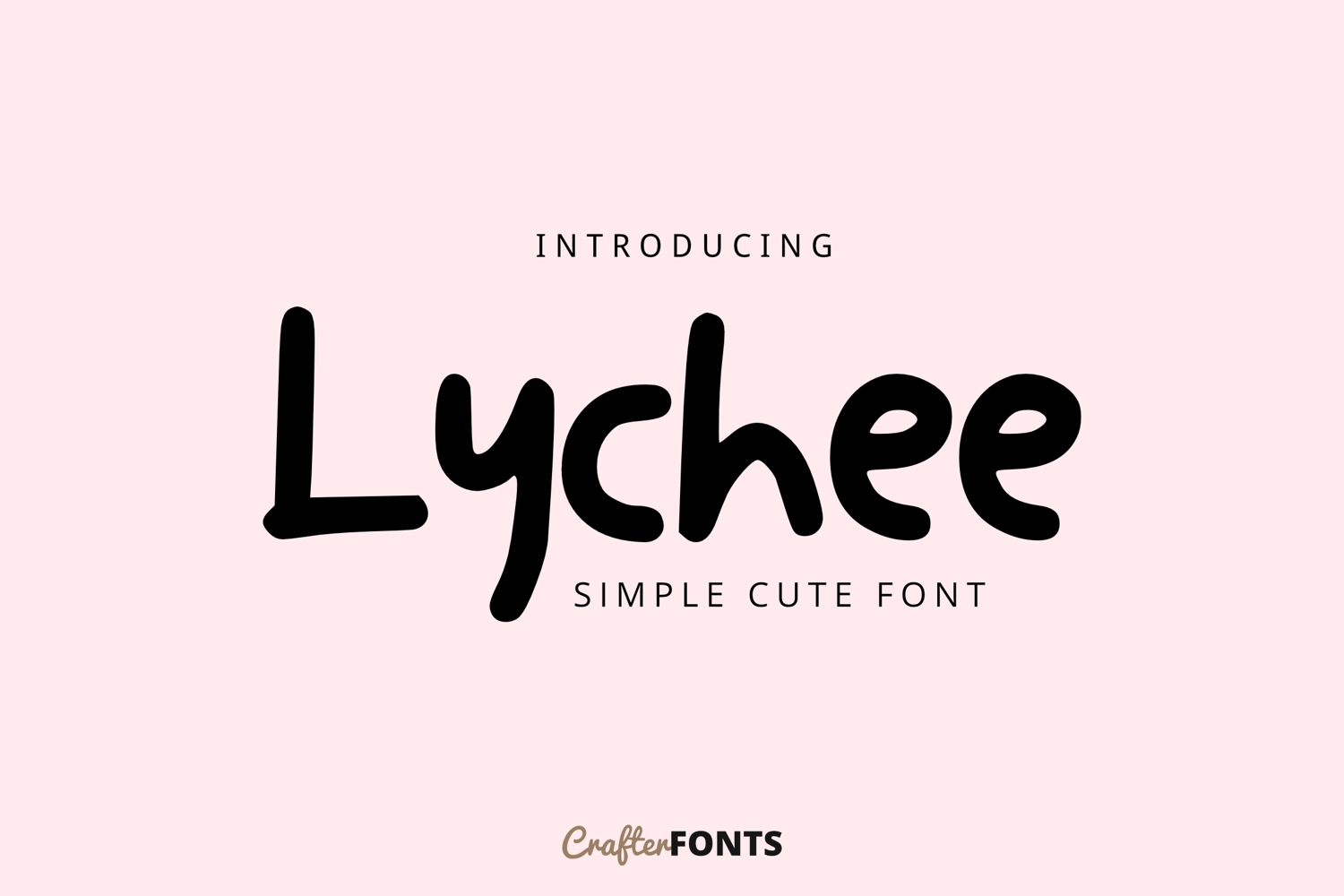
Lychee Font
Lychee Regular
Lychee – Simple Cute Font
Sweeten your creative projects with Lychee, a simple and cute display font featuring a delightful, bouncy, and organic handwritten style. With its clean yet uniquely rounded strokes, it brings a fresh and friendly look that is perfectly suited for children's designs, greeting cards, custom merchandise, playful logos, social media graphics, and food packaging.